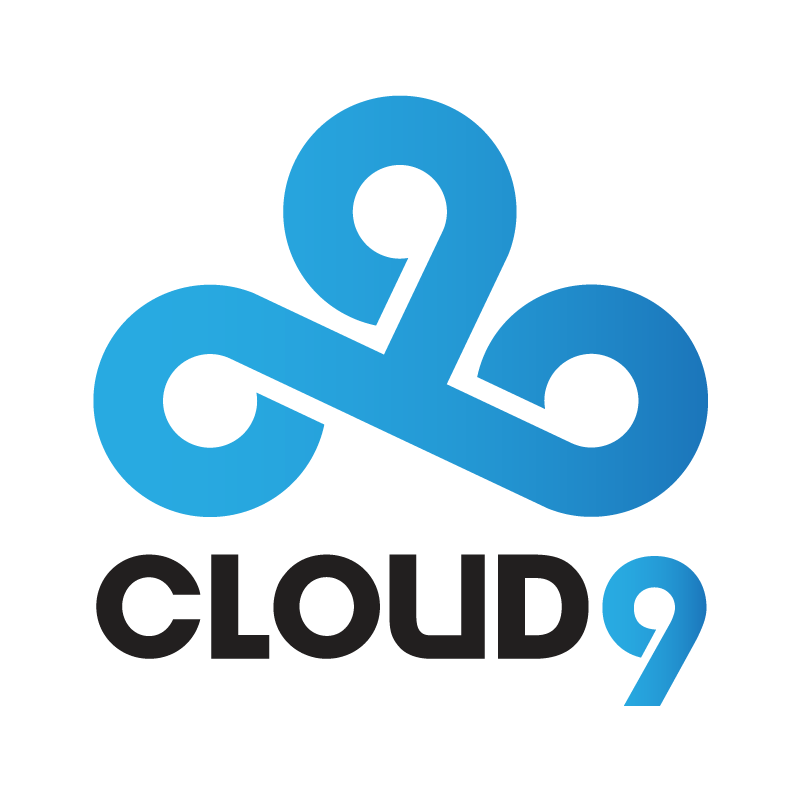
Devil Breeze Bold font is used for the logo of Cloud9. This font is a free geometric sans font family based on the variations and similarities of Avant Garde typeface. The font family is available in five weights ranging from Light to Bold. You can download Devil Breeze Bold font family for free here.